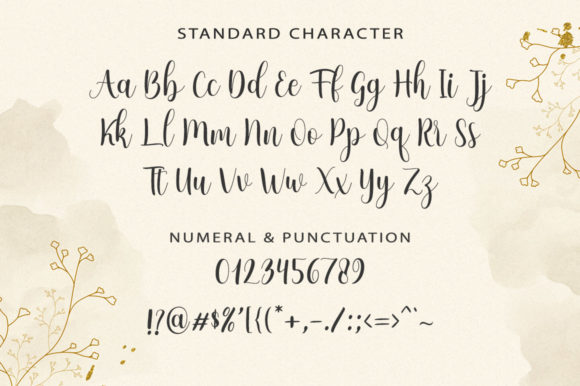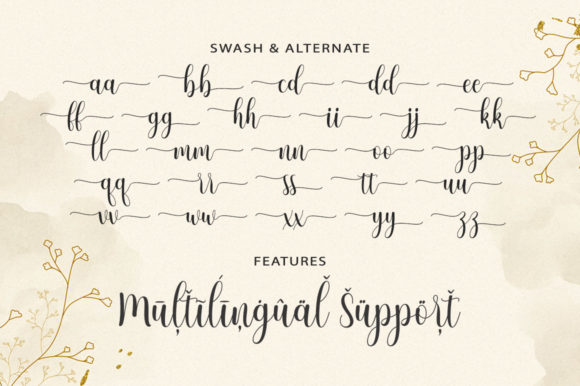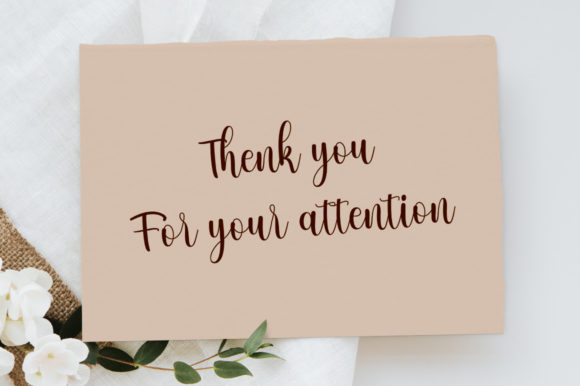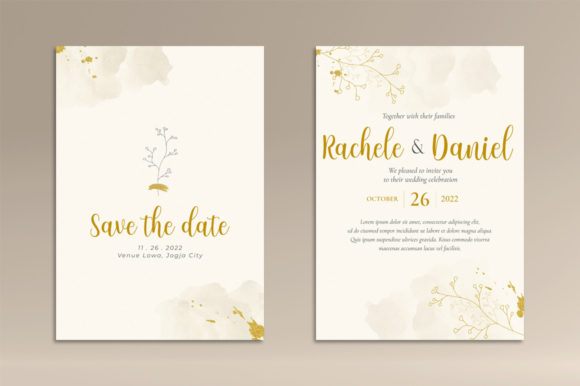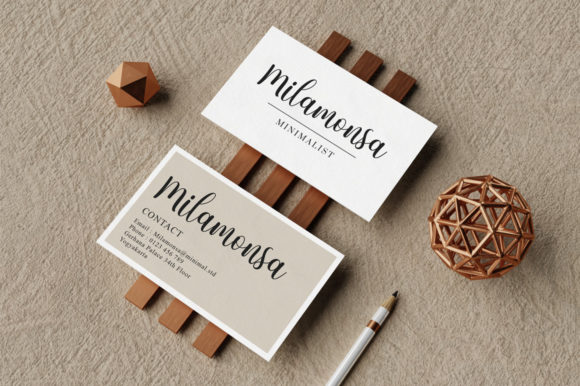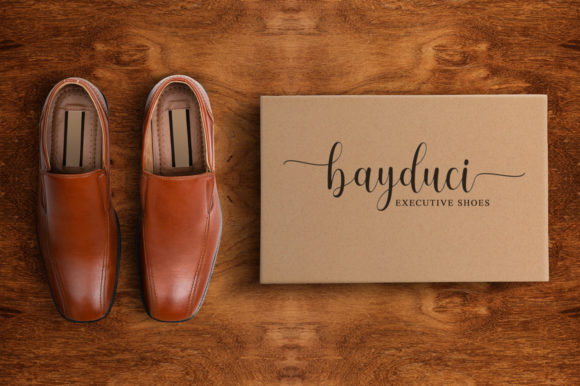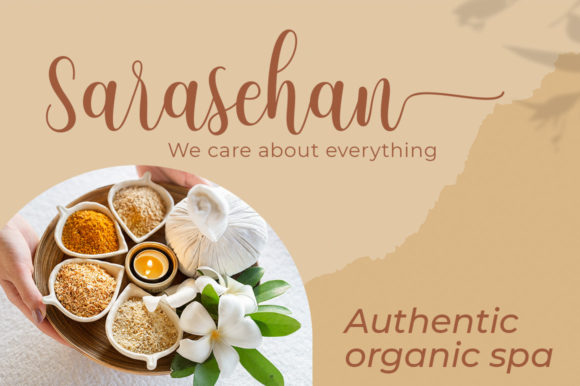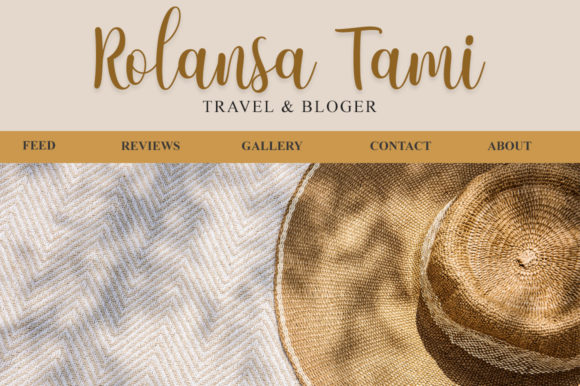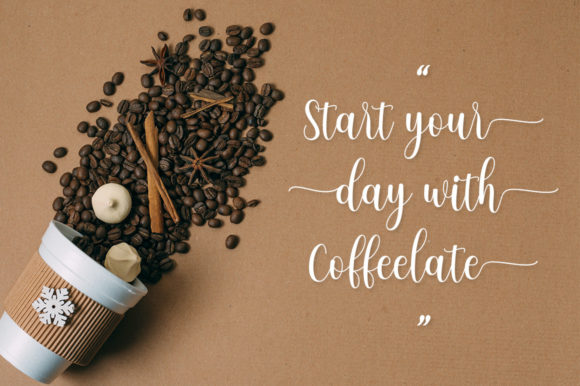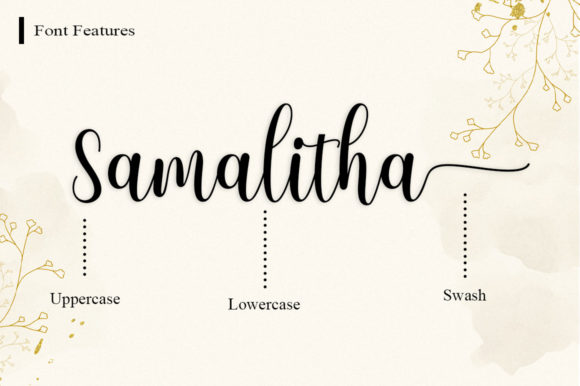
Josephine Font
About Josephine Font
Josephine is an enchanting handwritten font. This versatile script font has a wide spectrum of applications ranging from greeting cards to headlines. Josephine is PUA encoded which means you can access all glyphs and swashes with ease!